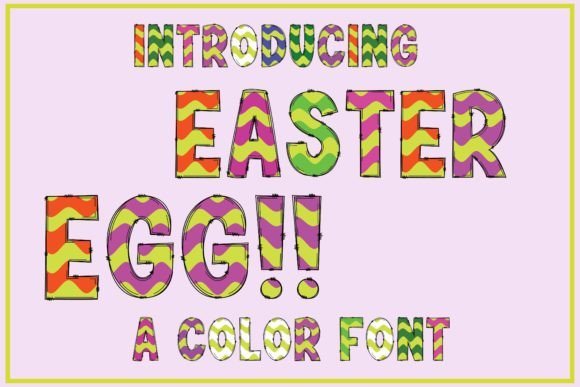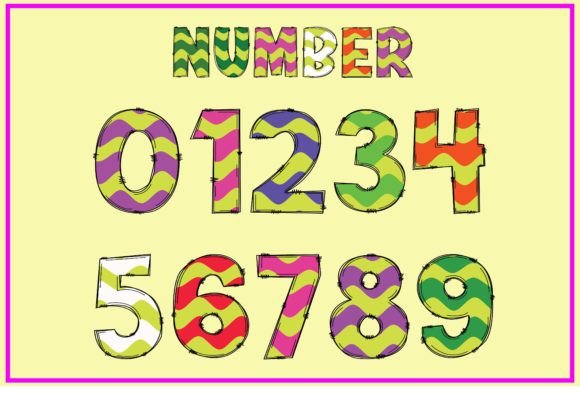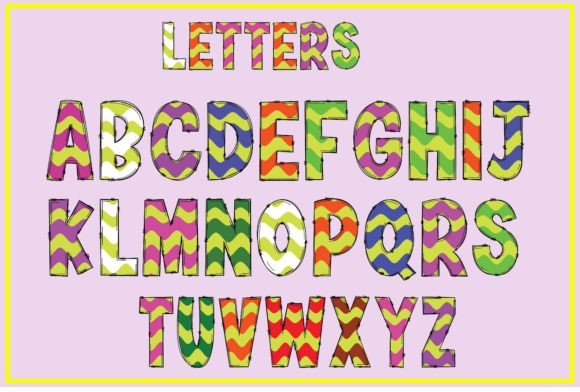
Discover the Magic of Easter Egg Font
Have you ever been working on a project, and suddenly, a spark of creativity strikes? You envision a whimsical design, a playful logo, or a vibrant poster that radiates joy. That’s exactly what happened to me last week when I stumbled upon the Easter Egg Font. It’s a sweet, friendly, and childish color font that instantly adds a touch of magic to any design.
The Easter Egg Font is designed to bring out the child in all of us, making it perfect for projects that require a playful and whimsical feel. Whether you’re creating a children’s book, a nursery decor, or a social media campaign, this font is sure to make your designs come alive. As a designer, you’ll appreciate the versatility of the Easter Egg Font, which can be used to add a pop of color and personality to your work.
Easter Egg Font Key Features
- Font Family: Easter Egg Font is a unique, hand-drawn font family designed to resemble Easter eggs.
- Character Set: Includes a wide range of characters, including uppercase and lowercase letters, numbers, and punctuation marks.
- Size: Each character is carefully crafted to be highly legible, with a recommended font size range of 12-48 points for optimal readability.
- Resolution: Optimized for high-resolution displays, making it perfect for use in digital applications, including web design, graphic design, and print media.
- Unique Characteristics: Easter Egg Font features intricate, hand-drawn designs and subtle color variations, giving it a distinctive and playful feel.
Easter Egg Font Review
I recently had the chance to work with the Easter Egg Font, and I must say it’s a unique addition to any design project. Here’s what I liked about it:
- ✨ The Easter Egg Font has a playful, whimsical feel that’s perfect for spring-themed designs or Easter-inspired projects.
- ✨ The font is highly customizable, allowing you to adjust the color, size, and spacing to fit your design needs.
- ✨ The font’s intricate details and ornate design elements make it a great choice for adding a touch of elegance to your designs.
- ⚠️ The Easter Egg Font can be overwhelming if used in large quantities or as the primary font for a project.
- ⚠️ Some of the font’s details may not display properly in certain font sizes or resolutions.
- ⚠️ The font’s complexity may make it challenging to pair with other fonts, especially those with simpler designs.
Overall, I think the Easter Egg Font is a great addition to any designer’s toolkit. While it may have some limitations, its unique design and high level of customizability make it a valuable resource for spring-themed or Easter-inspired projects.
Tips for Getting the Most Out of Easter Egg Font
Here are some tips for getting the most out of Easter Egg Font:
- Use it for whimsical and playful designs.
- Combine it with other fonts for a unique look.
- Experiment with different font sizes and colors.
Common Use Cases for Easter Egg Font
Easter Egg Font is commonly used for:
- Children’s book covers and illustrations.
- Party invitations and decorations.
- Whimsical greeting cards and gift tags.
Alternative Easter Egg Fonts for Designers
Candy Font
Candy Font is a playful, cursive font that is reminiscent of Easter Egg Font. It’s perfect for adding a whimsical touch to designs that need a touch of sweetness. While Candy Font is more informal than Easter Egg Font, it still conveys a sense of fun and playfulness.
Comparison: Candy Font is more cursive and less structured than Easter Egg Font, making it ideal for designs that require a more free-flowing feel.